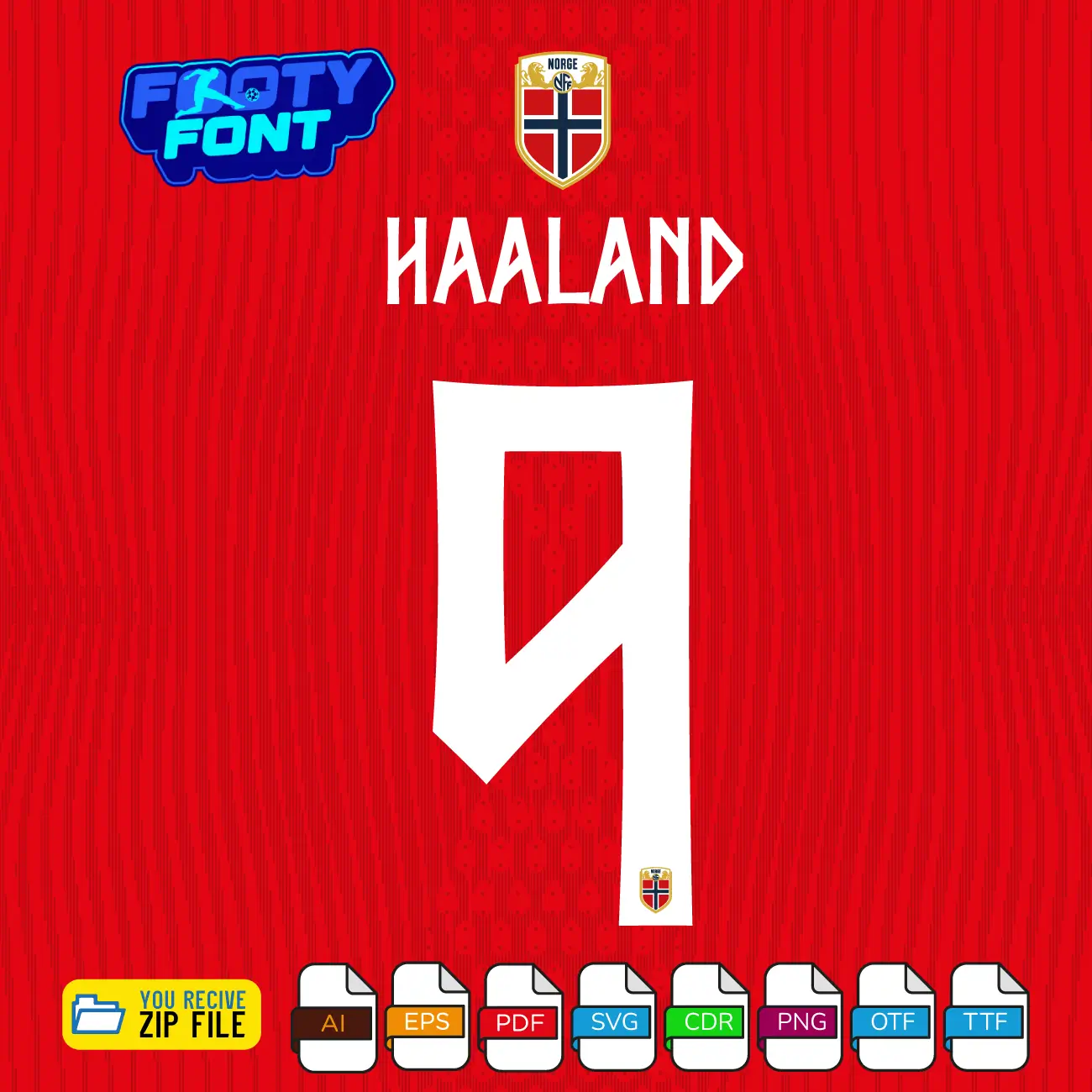
Norway 2026 Football Font Released – Norse Runic
Channel the fierce Viking spirit of the Løvene (The Lions) with this font football, inspired by the Norway 2026 World Cup home kit. This high-quality typeface is meticulously designed to replicate the highly unique, Norse-runic lettering worn by the Norwegian National Team. It features striking white, angular numbers and letters that perfectly complement their classic red home jerseys with subtle Nordic cross details.
This font captures the powerful and elite style worn by global superstars like Erling Haaland, Martin Ødegaard, and Alexander Sørloth. As Norway looks to make a massive impact on the world stage, this home font is an absolute must-have for fans creating custom jersey designs, digital art, streetwear, or matchday posters.
Composite image showing Erling Braut Haaland wearing the red home jersey alongside the complete character set of the Norway Font World Cup 2026 Home.
A complete look at the Norway Font World Cup 2026 Home, featuring the full number set and a real-world match photo of Erling Haaland.
Use this font to bring authentic Nordic football style into your designs-whether for custom jersey graphics, fan merchandise, posters, or social media content.
Norway Font World Cup 2026 Home showing the complete alphabet and unique runic white numbers.
Norway Font World Cup 2026 (Home Kit)